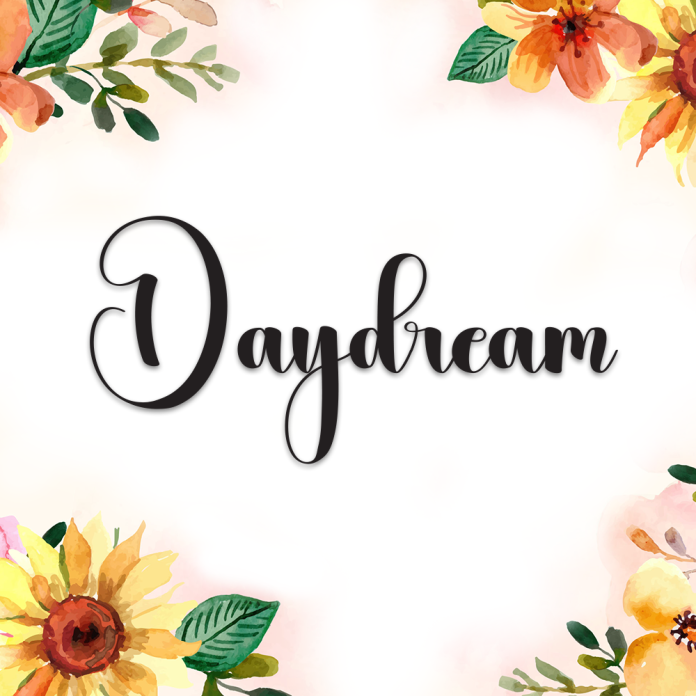
Daydream is a whimsical and charming handwriting font that captures the gentle flow of personal notes and heartfelt messages. Its soft strokes and natural curves give your designs a warm, authentic touch.
Elegant, casual handwriting style
Perfect for invitations, greeting cards, quotes, and branding
Smooth letter connections for a natural handwritten feel
Let your creativity wander freely with the dreamy elegance of Daydream.